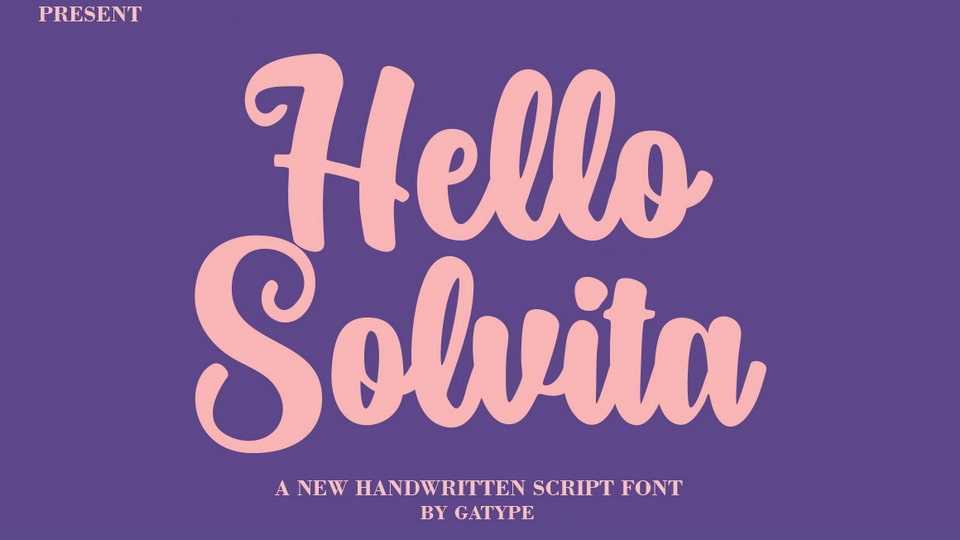
Download Hello Solvita font, a fancy retro script typeface with bold high-contrast strokes. A playful character with a bit of binder and an alternative style it’s perfect to give you extra creative. work.